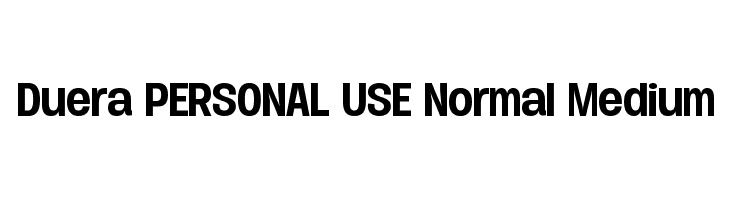
A bold, modern font with strong geometric shapes and uniform strokes.
A bold, modern blackletter-inspired font with sharp, angular edges.
A playful handwritten font with smooth curves and elongated forms.
A modern, geometric sans-serif font with clean lines and balanced proportions.
A bold, italicized sans-serif font with a modern and dynamic style.
A bold, modern sans-serif font with clean lines and a strong presence.
A playful, handwritten-style italic font with smooth, rounded strokes.
设计师偏爱 Duera PERSONAL USE Normal Medium, Neroli, Nallo, Let That Be Enough and Yellowed Thin,因为其造型干净、适用范围广—— 从品牌识别到落地页、海报都能胜任。